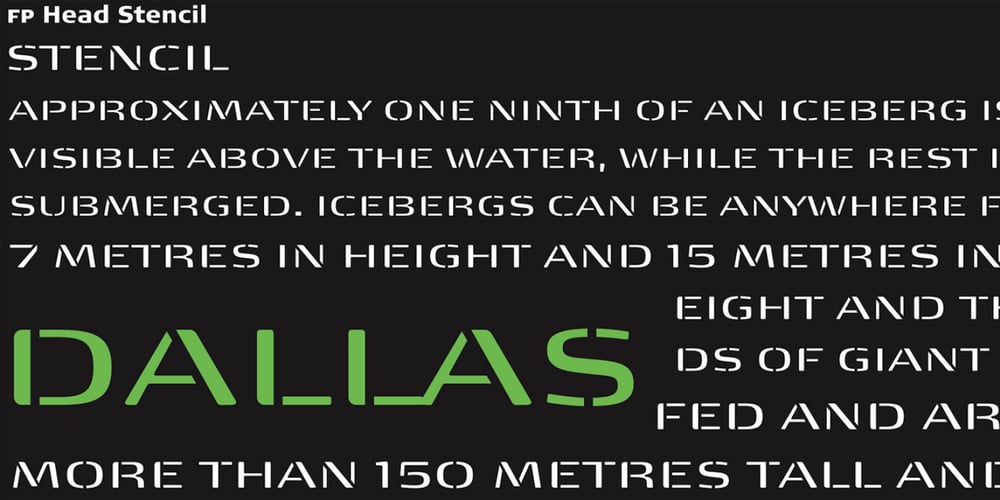
FP Head Font Family was designed by Morten Rostgaard Olsen and published by Fontpartners. FP Head contains 2 styles and family package options. FP Head is a redesign of a corporate typeface for the Danish trade union FOA. Head is a extended display font, with a blurred look and a touch of FF Max: Hard and soft at the same time. Available in two versions.